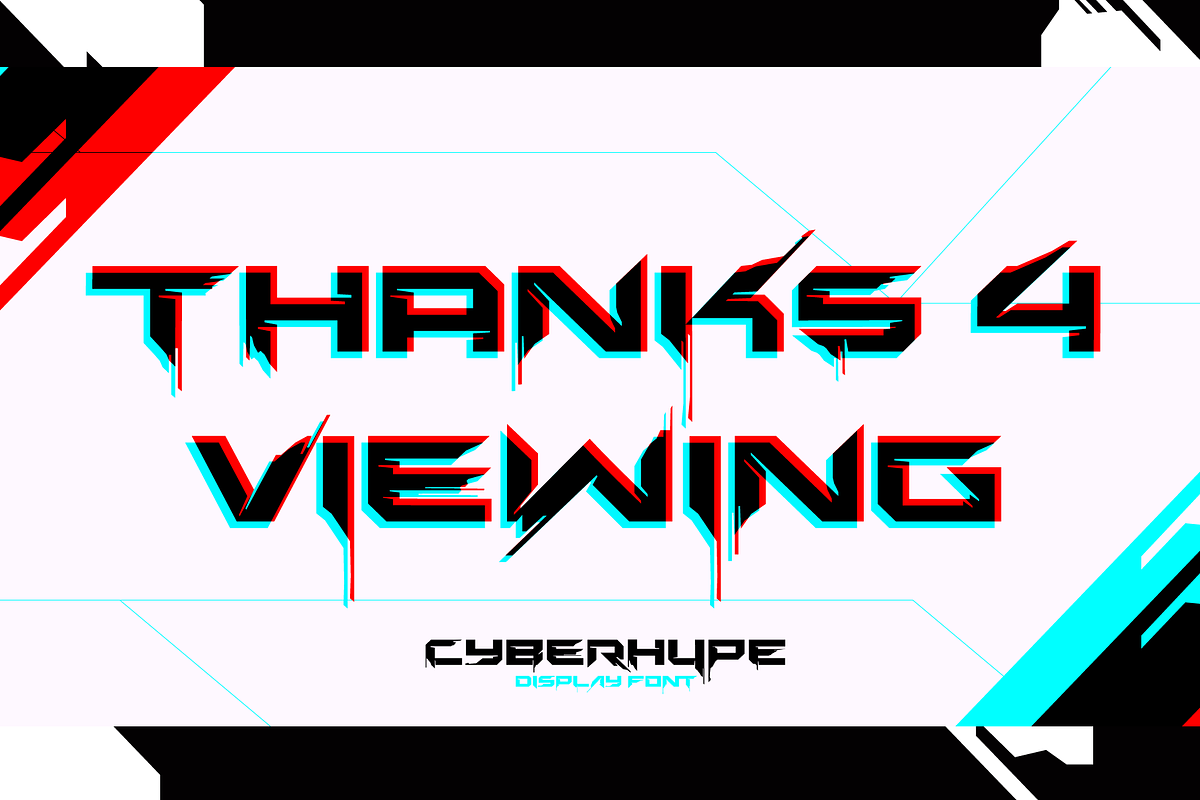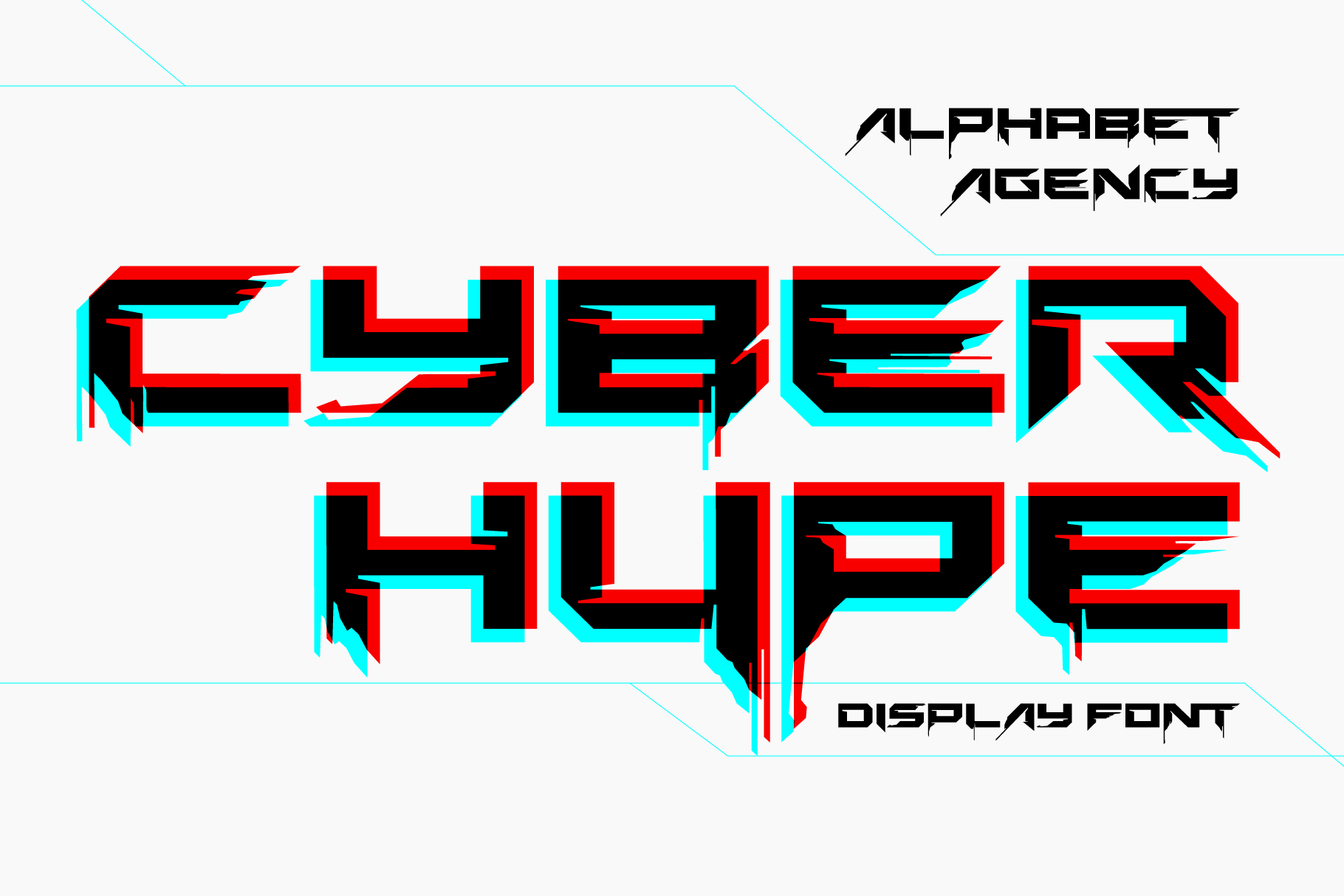
CYBERHYPE FONT
Alphabet Agency proudly presents Cyberhype. Cyberhype is a bold display font with a glitched look. There are two options for each letter.